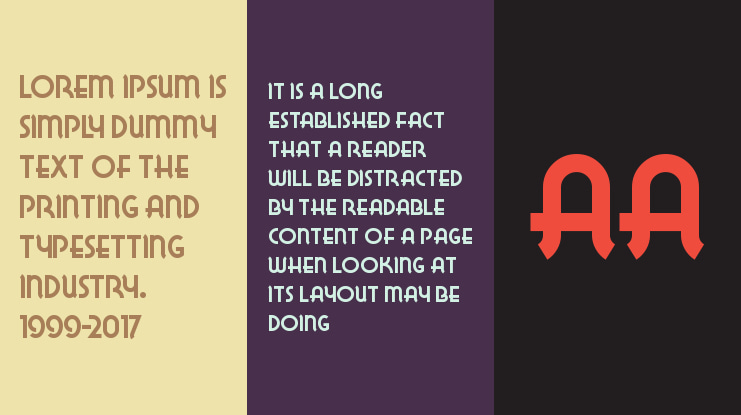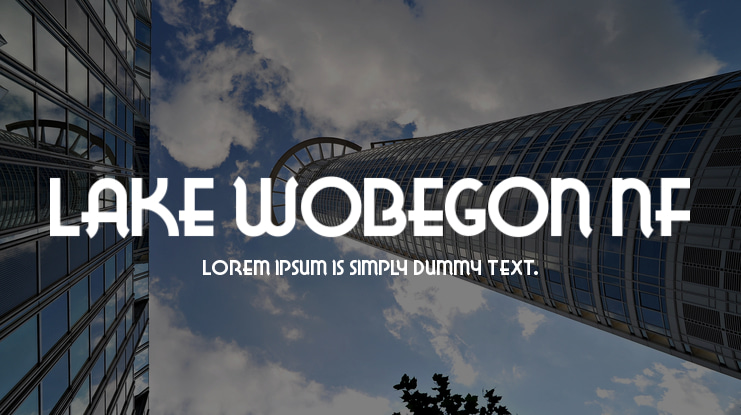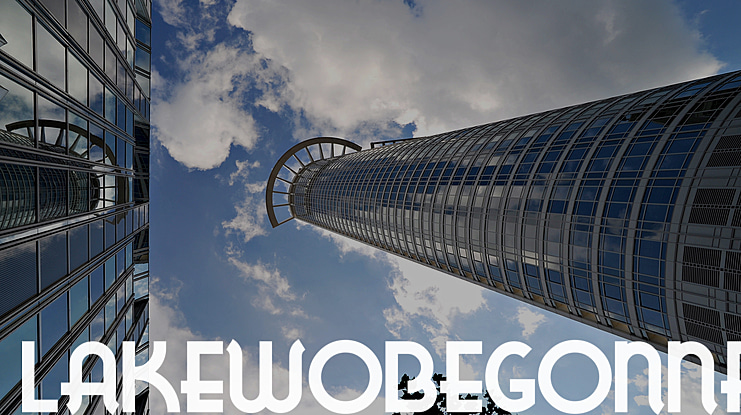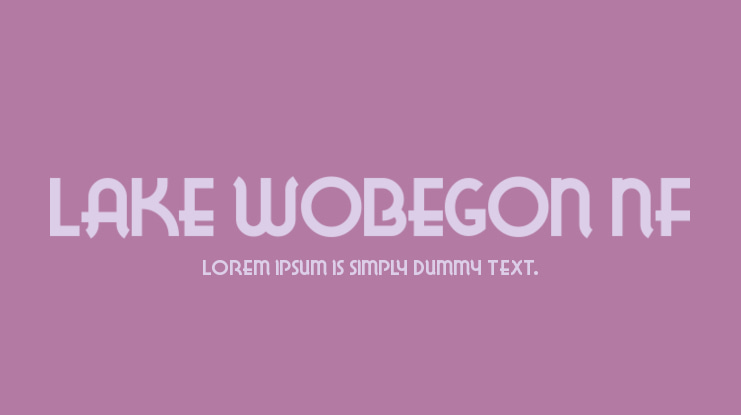
Lake Wobegon NF Font
Nick Curtis
A travel poster celebrating the Norwegian Midnight Sun provided the source material for this playful yet elegant font. Sorry, the original designer was not credited. Named after the North American capital of Norwegian bachelor farmers.